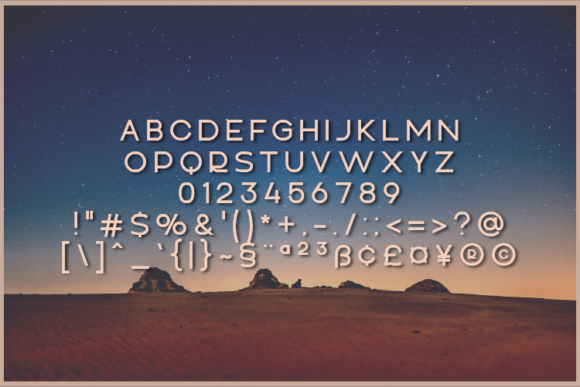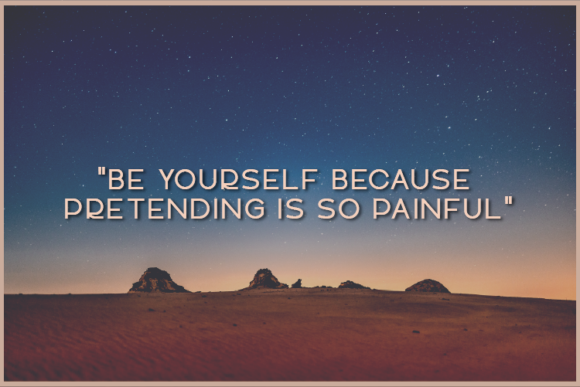
Discover the Power of Brizel Font
Have you ever stared at a blank page, waiting for inspiration to strike? You’ve got an idea, but it’s just not coming together – until, that is, you pick up your favorite pen and start doodling. The lines begin to flow, and before you know it, a beautiful design starts to take shape. It’s moments like these that remind us why we love being creative. And for designers, having the right tools can make all the difference.
Enter the Brizel Font, a clean and simple sans serif font that’s perfect for any project. Whether you’re designing a logo, a brochure, or a website, this versatile font will elevate your creations to the next level. With its sleek lines and modern feel, the Brizel Font is a valuable addition to any designer’s library. It’s the perfect companion for bringing your ideas to life.
Brizel Font Key Features
- Font Family: Brizel Font is a sans-serif font family designed for digital use.
- Character Set: Brizel Font includes a comprehensive set of characters, including Latin, Cyrillic, and Greek scripts, as well as a range of punctuation and symbols.
- Resolution: Designed for high-resolution displays, Brizel Font is optimized for use at 96 DPI (dots per inch) or higher.
- Unique Characteristics: Brizel Font features a clean, modern design with a subtle rounded edge, making it suitable for a wide range of digital applications, from web design to mobile apps.
- Font Size: Available in 6 different font weights, ranging from Light to Extra Bold, allowing for flexibility in typography and design.
Brizel Font Review
I recently had the chance to work with the Brizel Font, and I must say, it’s a unique and interesting typeface. ✨ Here are some of the things that I think work well with Brizel:
- ✨ Uniqueness: Brizel has a distinct, hand-drawn feel that can add a touch of personality to your designs.
- ✨ Versatility: It can be used for a wide range of projects, from headlines to body text, and even for logos.
- ✨ Customizability: Brizel comes in various weights and styles, making it easy to find the right fit for your project.
However, like any font, Brizel has its limitations. ⚠️ Here are some things to keep in mind:
- ⚠️ Readability: Brizel can be a bit tricky to read, especially at smaller font sizes or in body text.
- ⚠️ Consistency: Some of the letterforms may not be perfectly consistent across different weights and styles.
Overall, I think Brizel is a great choice for projects where you want to add a touch of whimsy or personality. It’s not perfect, but it’s definitely a unique and interesting font that can add some flair to your designs. Just be sure to use it wisely and in the right context.
Brizel Font is perfect for creating eye-catching headings and titles in your Canva designs.
Brizel Font is ideal for creating custom typography in your Adobe designs.
Brizel Font is perfect for creating professional-looking headings and titles in your PowerPoint or Word documents.
Tips for Getting the Most Out of Brizel Font
To get the most out of Brizel Font, try combining it with other design elements, such as bold colors and graphics, to create a visually appealing design.
Experiment with different font sizes and styles to create a unique and engaging design.
Brizel Font is commonly used for:
- Cream-colored cardstock for a classic look
- Gold or silver foil stamping for added luxury
- Simple, elegant illustrations or graphics to complement the font
- A bold, sans-serif font for contrast and emphasis
- Colorful graphics or icons to add visual interest
- A clean, simple background to let the font take center stage
- Playful, hand-drawn illustrations of children, animals, or fantasy creatures
- A bright, colorful color palette to evoke
Use Brizel Font to create a unique and memorable logo for a business or brand.
To use Brizel Font in this project, experiment with different font combinations and styles to create a custom logo that reflects the brand’s personality and values.
Combine Brizel Font with:
Project 3: Whimsical Children’s Book Illustrations
Bring Brizel Font to life in a whimsical children’s book illustration project.
To use Brizel Font in this project, pair it with playful, hand-drawn illustrations and a bright, colorful color palette.
Combine Brizel Font with: